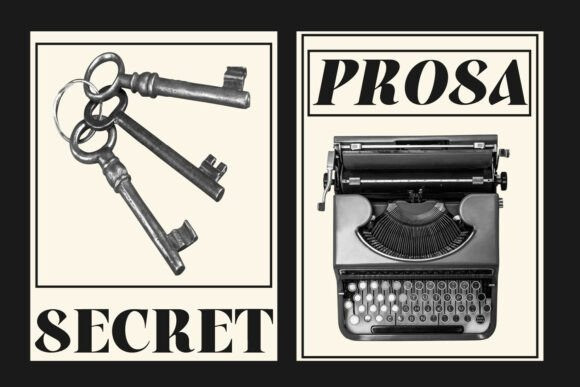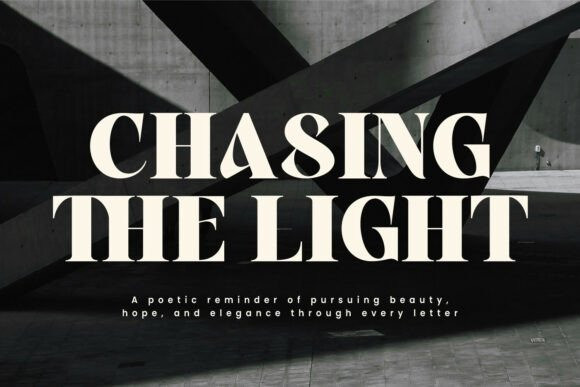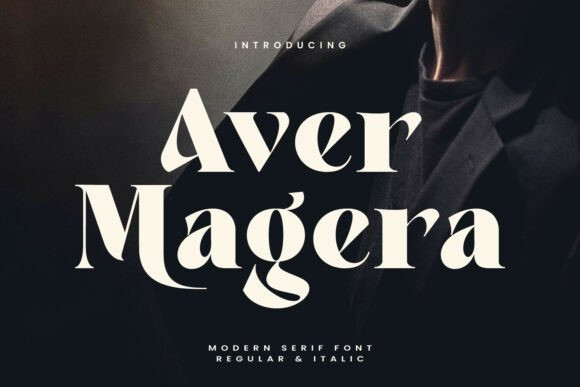
Aver Magera Font
Aver Magera Font – A stunning modern serif font designed to elevate your creative projects with timeless elegance and contemporary flair. Each curve and serif in Aver Magera reflects sophistication — ideal for those who want their design to speak with confidence and grace.
Crafted with attention to detail, Aver Magera blends classic charm with a modern minimalist touch, making it perfect for editorial layouts, branding, fashion projects, or high-end packaging. The font’s smooth contrast between thick and thin strokes creates a refined rhythm that feels both luxurious and approachable.
Aver Magera comes in Regular and Italic styles, offering flexibility for both headlines and body text. The Italic version adds a graceful slant, introducing motion and personality to your typography palette.
Bring sophistication to your next project — from magazine covers and product labels to logo designs and wedding invitations. Aver Magera transforms text into art, setting the tone for elegance and modern design aesthetics.